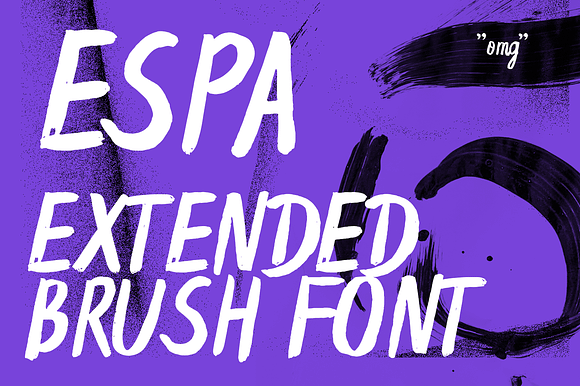
Espa Extended Brush Font
Espa Extended Brush Font is perfect for artistic branding, creative studio signage, expressive social media graphics, handmade product labels, artistic portfolios, craft workshop materials, bohemian fashion brands, custom calligraphy projects, artistic packaging design, creative business cards, intimate greeting cards, and authentic expressive communications.
What makes Espa Extended Brush Font exciting is its expansive creativity that captures the unbridled freedom of artistic expression through extended brush strokes that flow with passionate energy and creative spontaneity across expanded horizontal space. This captivating typeface embodies the essence of artistic liberation and expressive authenticity, combining organic brush movements with extended proportions that create dramatic visual impact while resonating with audiences seeking genuine creativity and bold artistic statement. The font's extended character and natural variations provide maximum expressive presence while maintaining the readability essential for commercial applications that demand both artistry and extended visual command. Its passionate personality makes it perfect for brands that want to communicate creative freedom, artistic authenticity, and the transformative power of extended expressive design and bold artistic vision.
The Espa Extended Brush Font family includes regular and bold weights, featuring extended brush alternates, flowing ligatures, and expansive artistic flourishes. The character set incorporates expressive symbols, artistic numerals, and creative punctuation marks that enhance the font's extended character and provide designers with comprehensive brush typography solutions for authentic brand expressions with maximum horizontal impact.